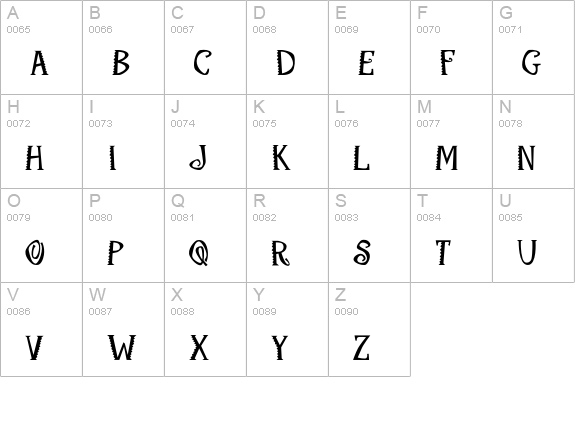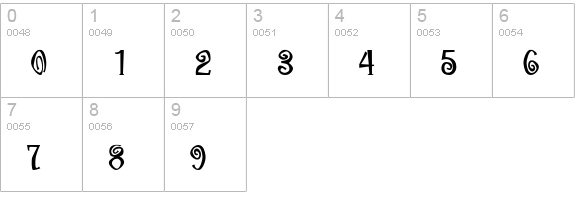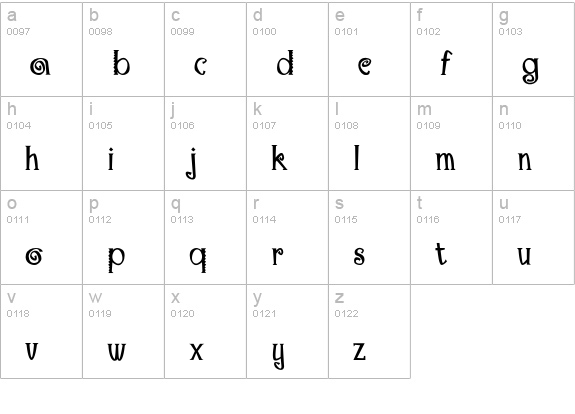
Mambo-Medium is a balanced, medium-weight variant in the Mambo typeface family \xE2\x80\x94 well suited to sub-headlines, navigation, and balanced editorial work.
Mambo-Medium is a remarkable font that effortlessly combines elegance with a touch of playfulness. With its balanced proportions and graceful curves, this typeface exudes a sense of sophistication that will enhance any design project. The beauty of Mambo-Medium lies not only in its aesthetic appeal but also in its versatility. Whether it's used for headlines, body text, or even logos, it will captivate viewers and leave a lasting impression. Its medium weight strikes the perfect balance between boldness and subtlety, making it suitable for a wide range of applications. One of the most appealing aspects of Mambo-Medium is that it is freely available for download at FontsMarket.com. This means that designers and enthusiasts alike can easily access this stunning font without any cost. By offering this font for free, FontsMarket.com aims to empower and inspire creativity, making high-quality typography accessible to everyone. Whether you're a professional designer looking to elevate your projects or an aspiring artist eager to experiment with typography, Mambo-Medium is the perfect choice. Its effortless charm and freely available nature make it a must-have font for anyone seeking to make a statement with their designs.